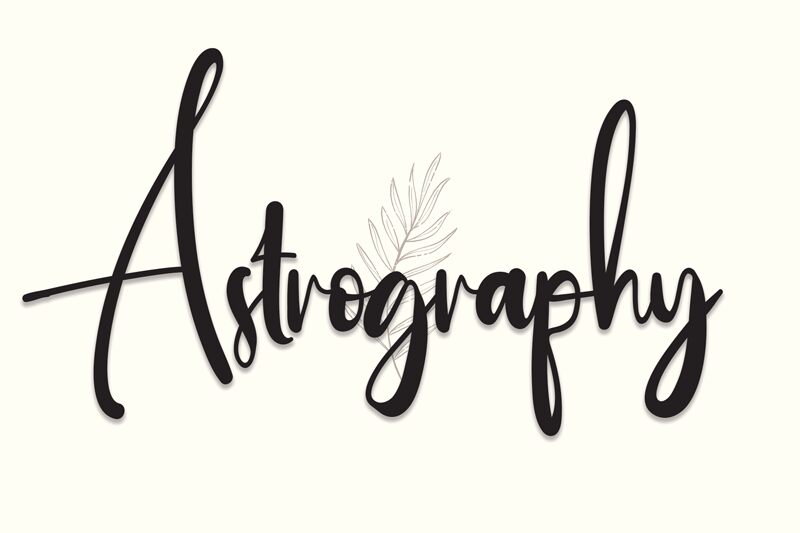
Astrography
Astrography, designed by Scratchones, is a semi-light handwritten font that exudes an elegant yet approachable charm. Its fluid and dynamic strokes suggest a mix of casual artistry with a touch of sophistication, making it an excellent choice for designers looking to inject personality and flair into their projects. The semi-light weight of Astrography ensures that it remains legible and versatile, perfect for invitations, branding materials, and editorial designs where a human touch is desired. The font's aesthetic leans towards the whimsical and free-spirited while maintaining clean lines that ensure clarity in communication.
Whether it's evoking the star-studded sky or gracing the pages of a boutique magazine, Astrography stands out as a stylish contender in the realm of typography.